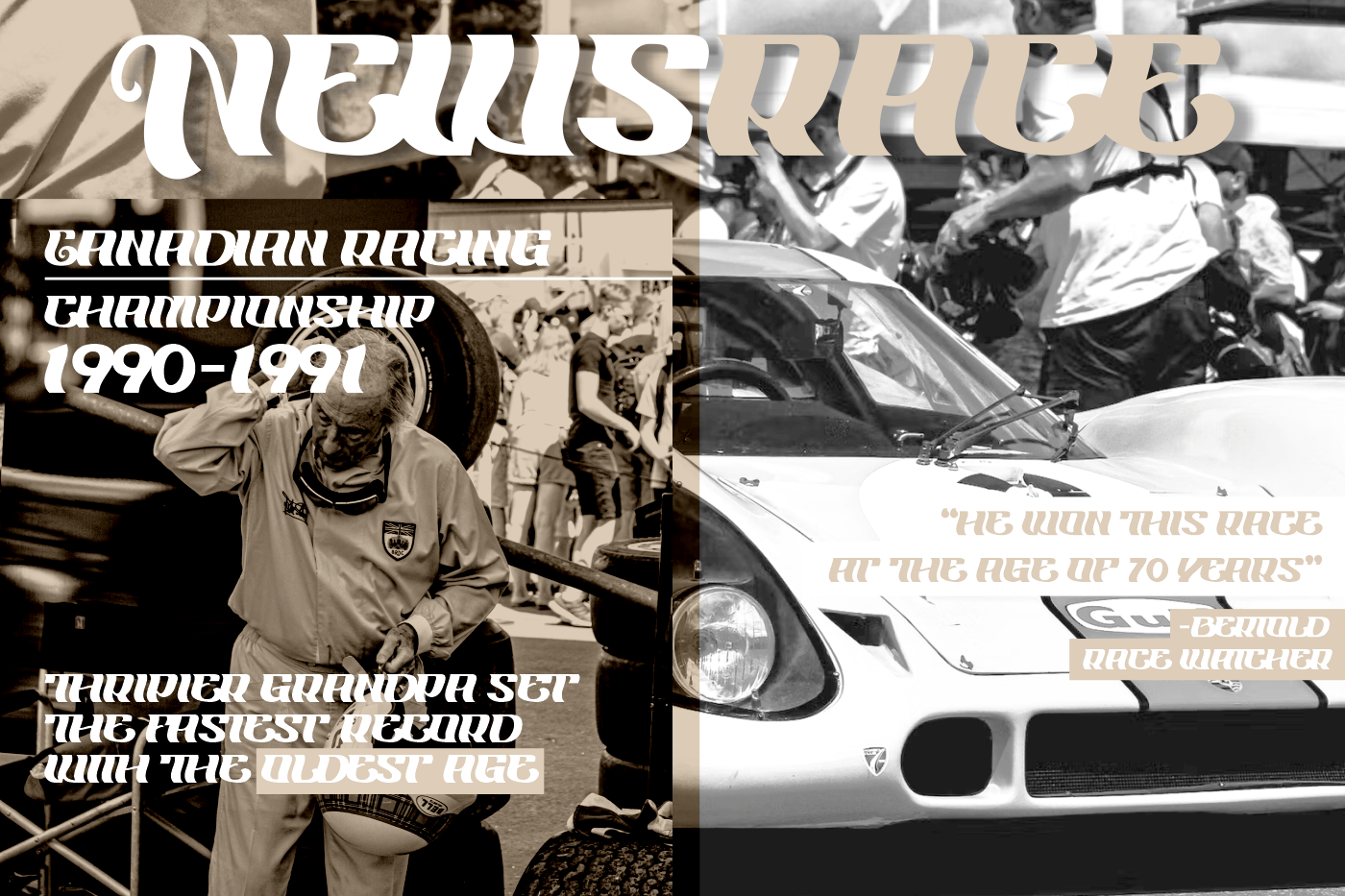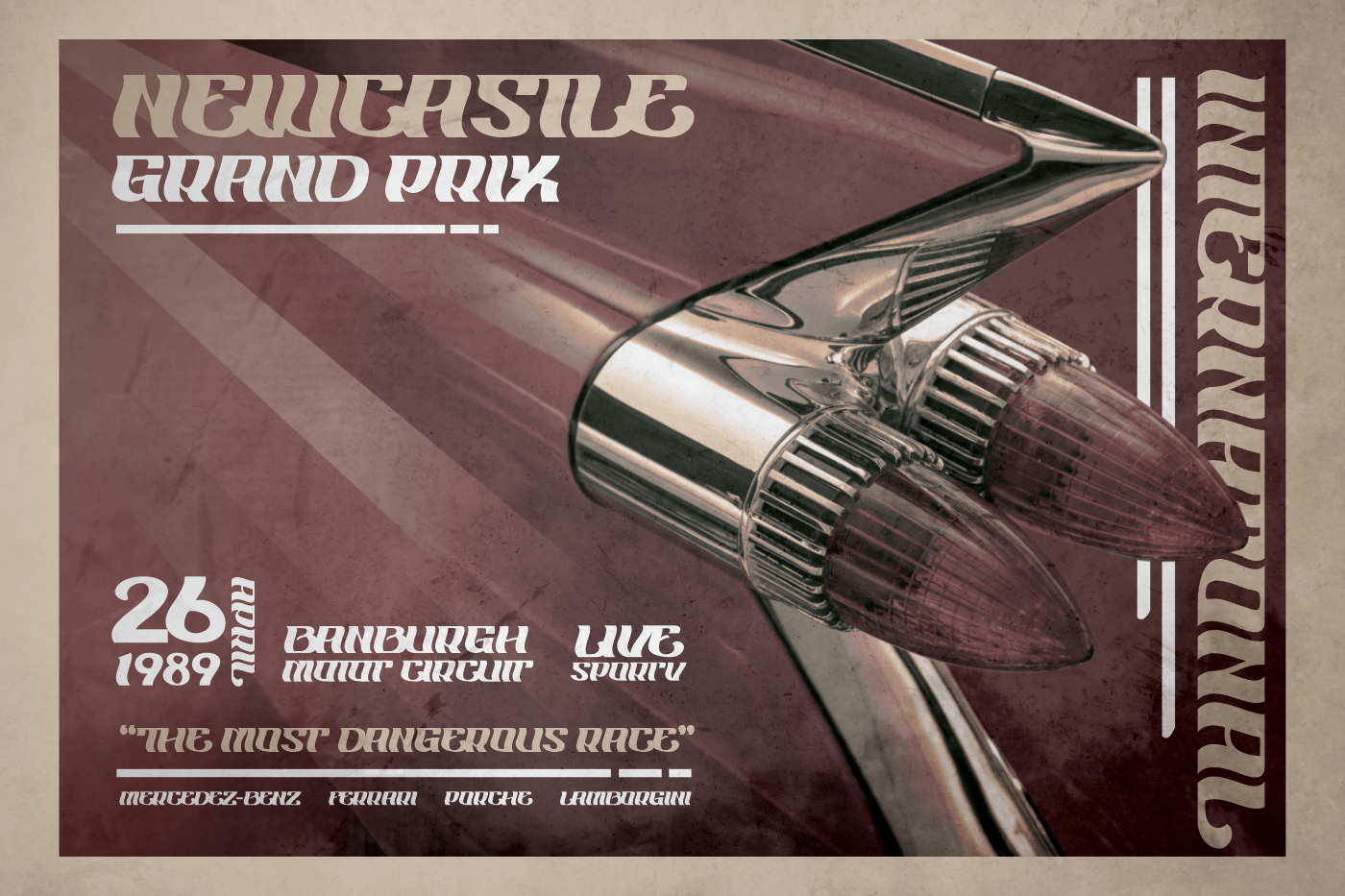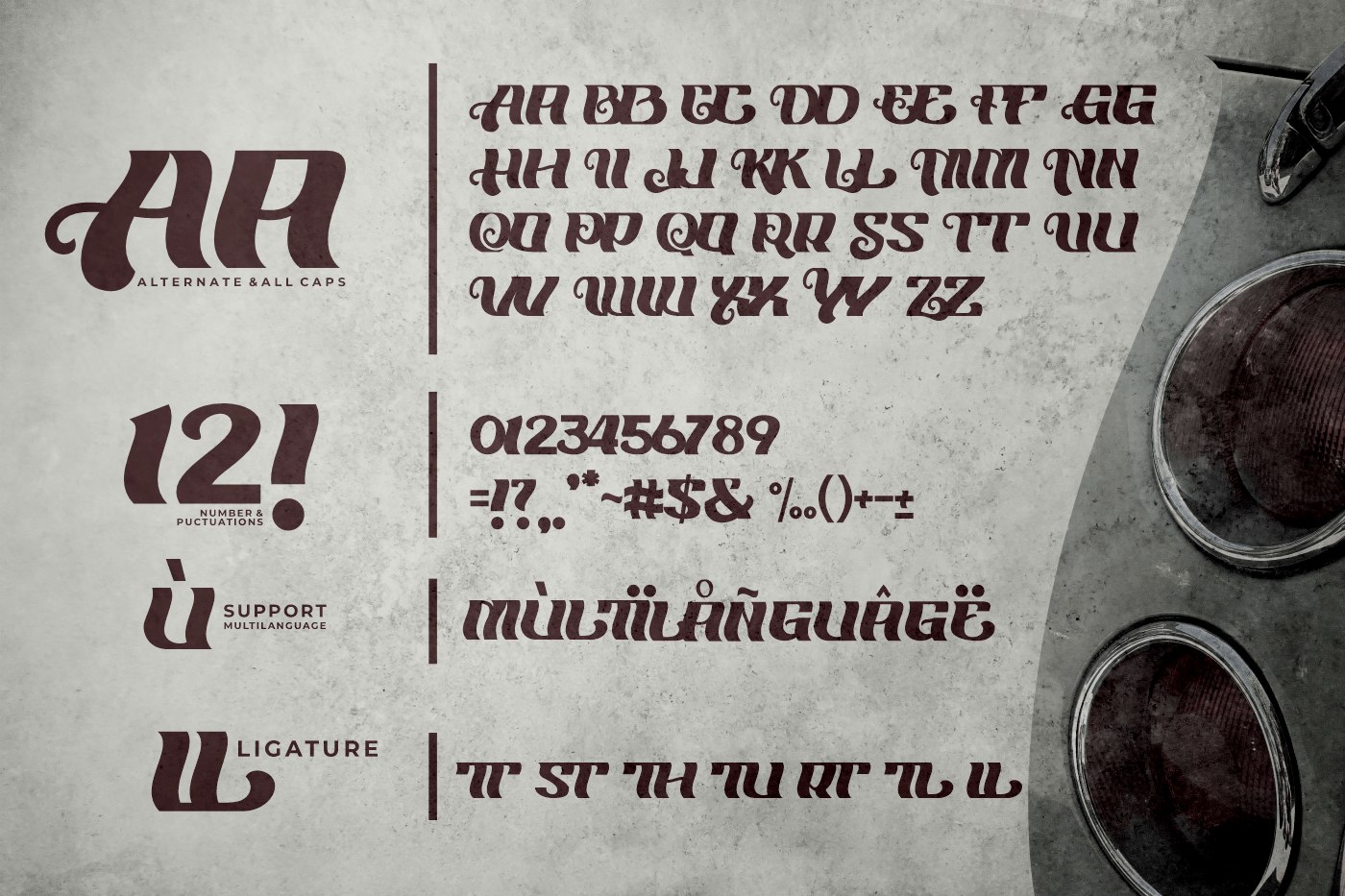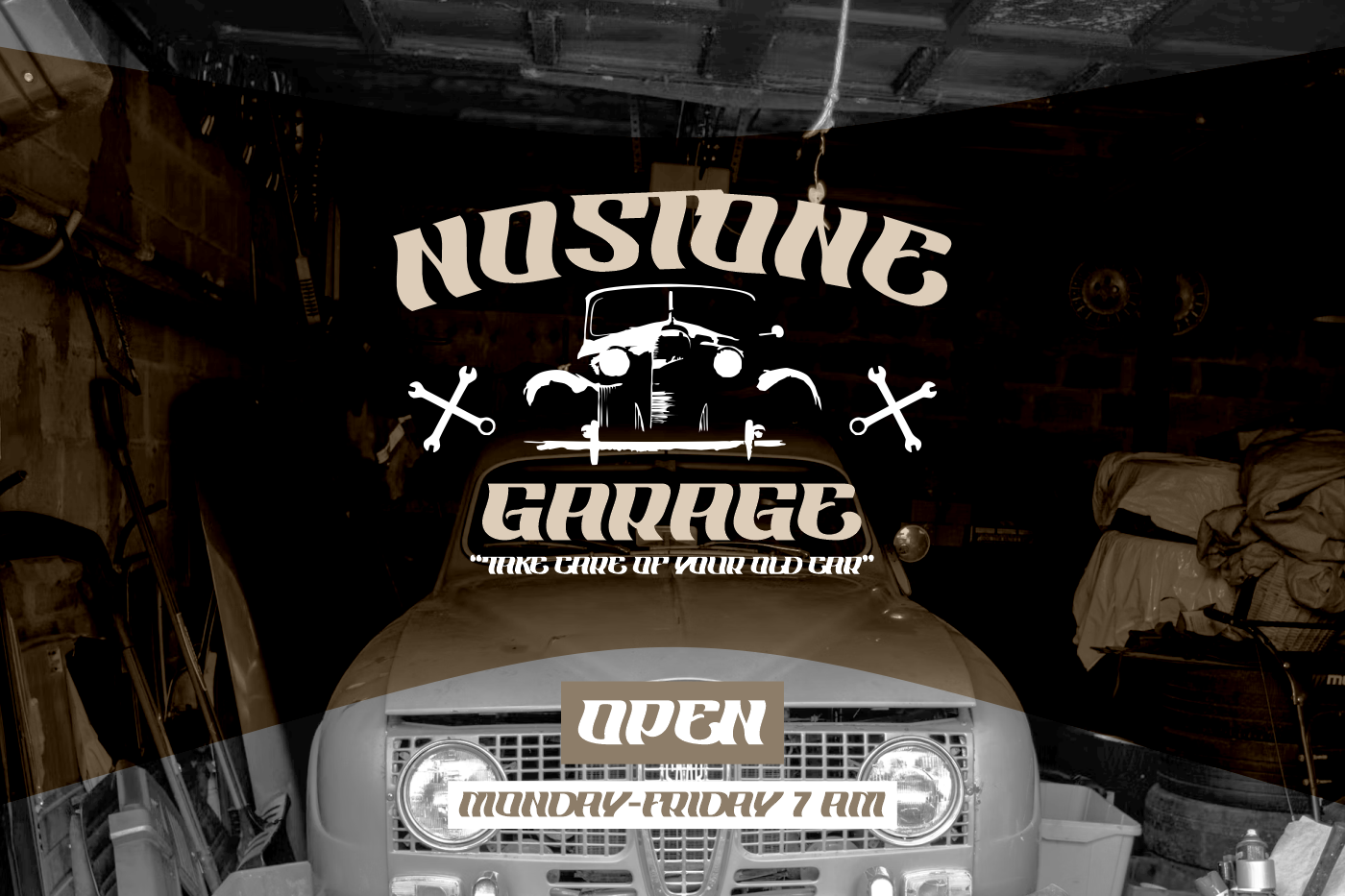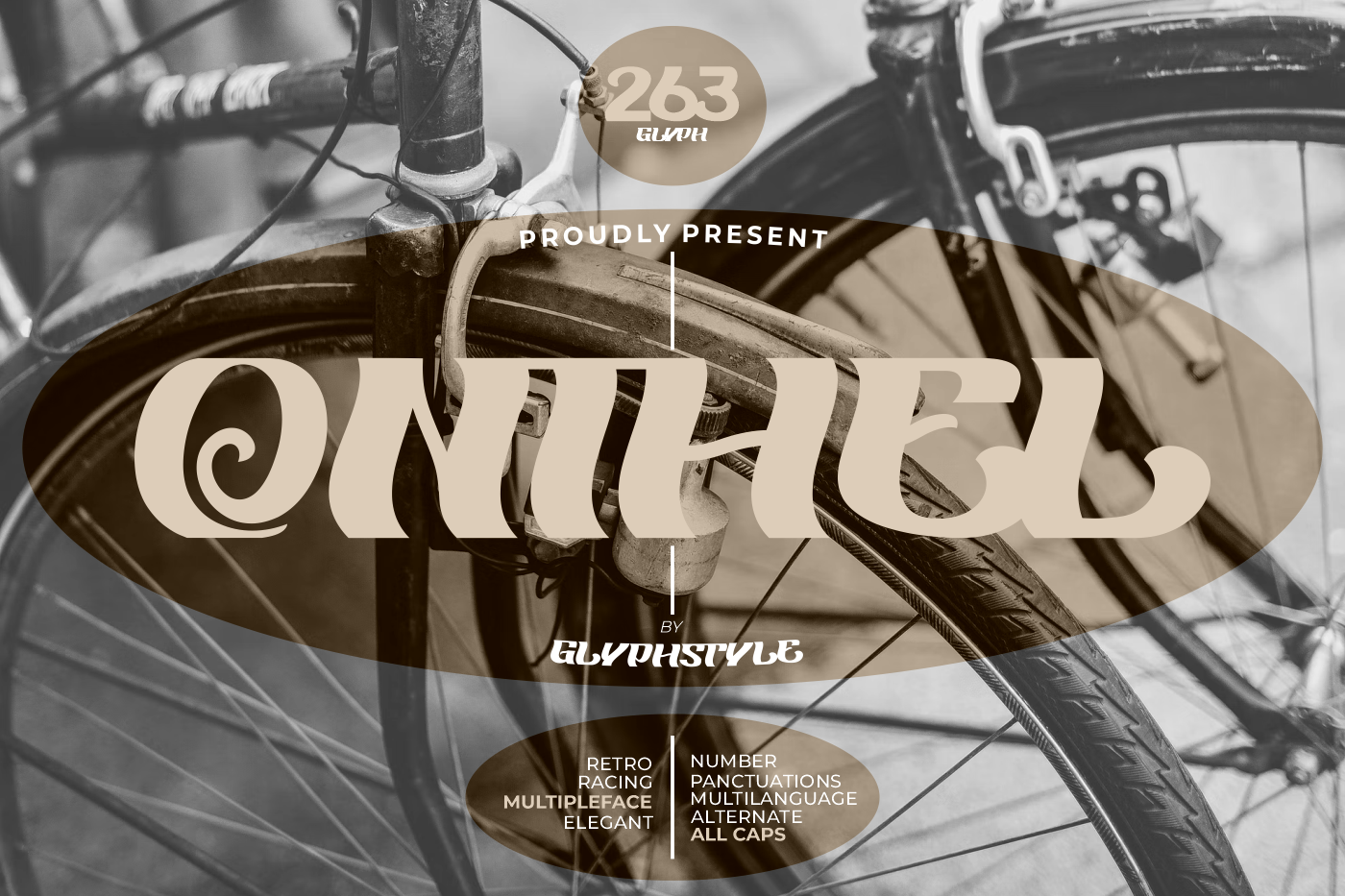
ONTHEL Font
ONTHEL Display Font
This is a display font, with several faces, it can be racing, retro or elegant. With a bold shape and beautiful alternate stylistics, this bold font can also look elegant.